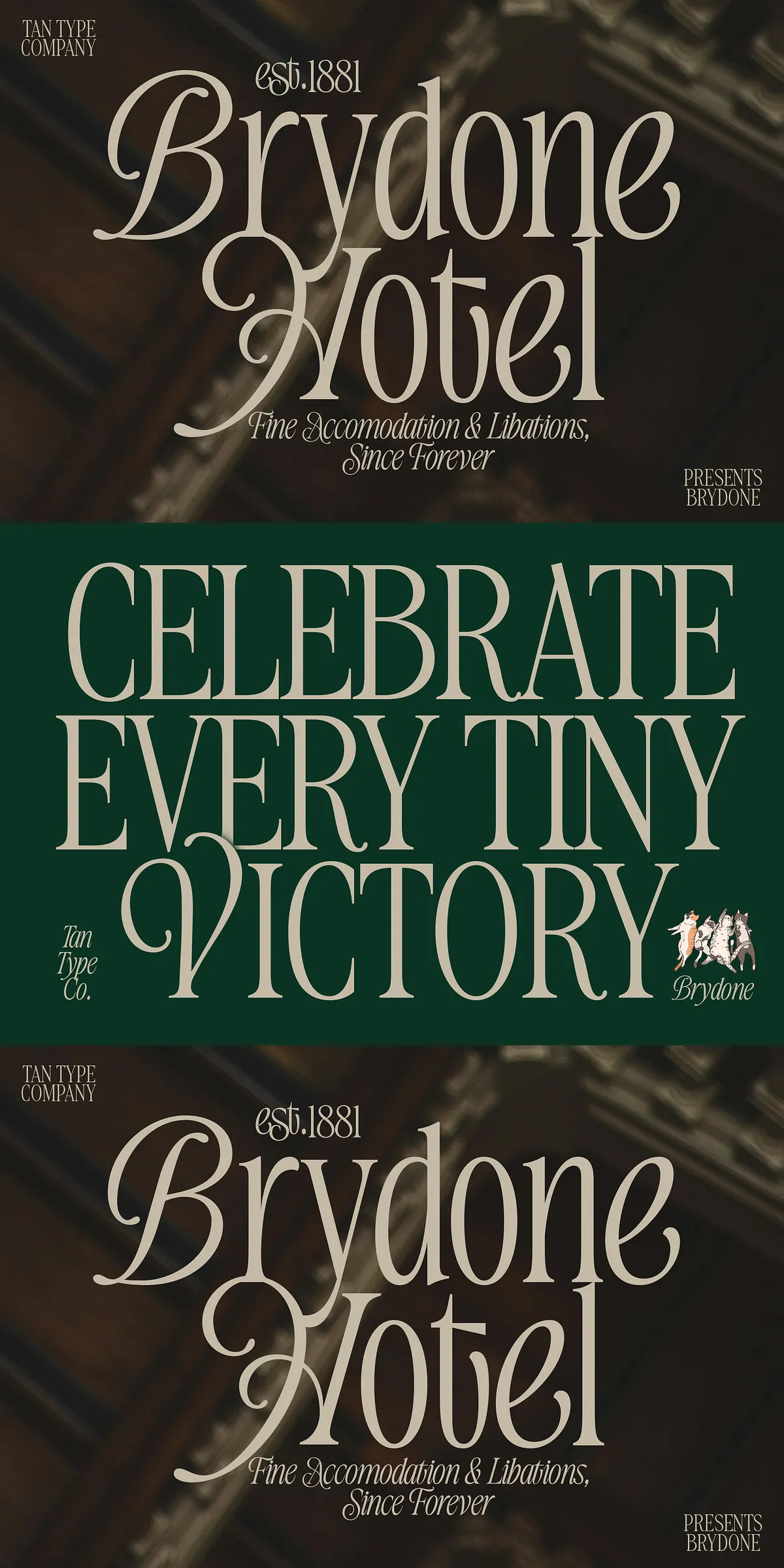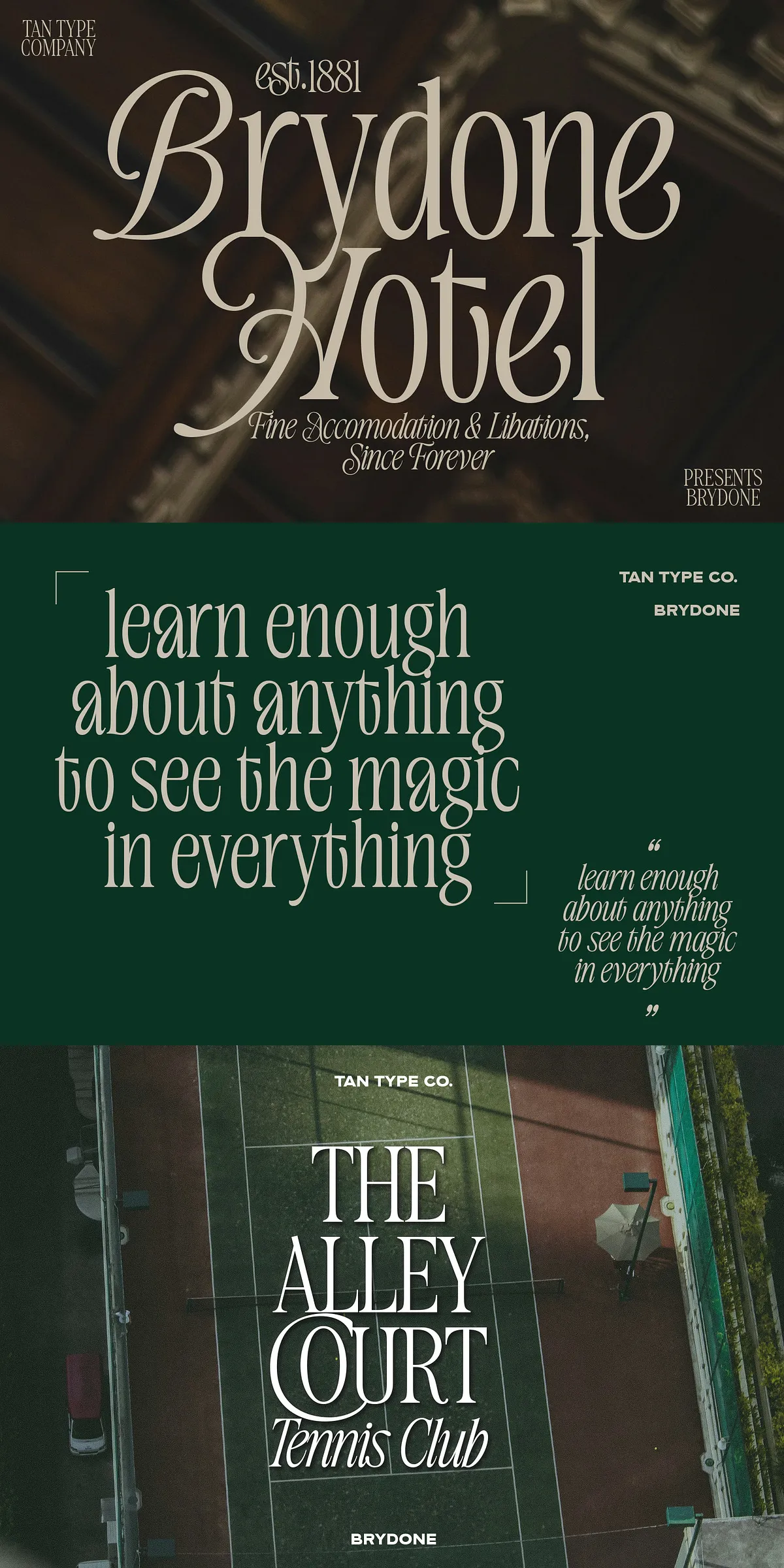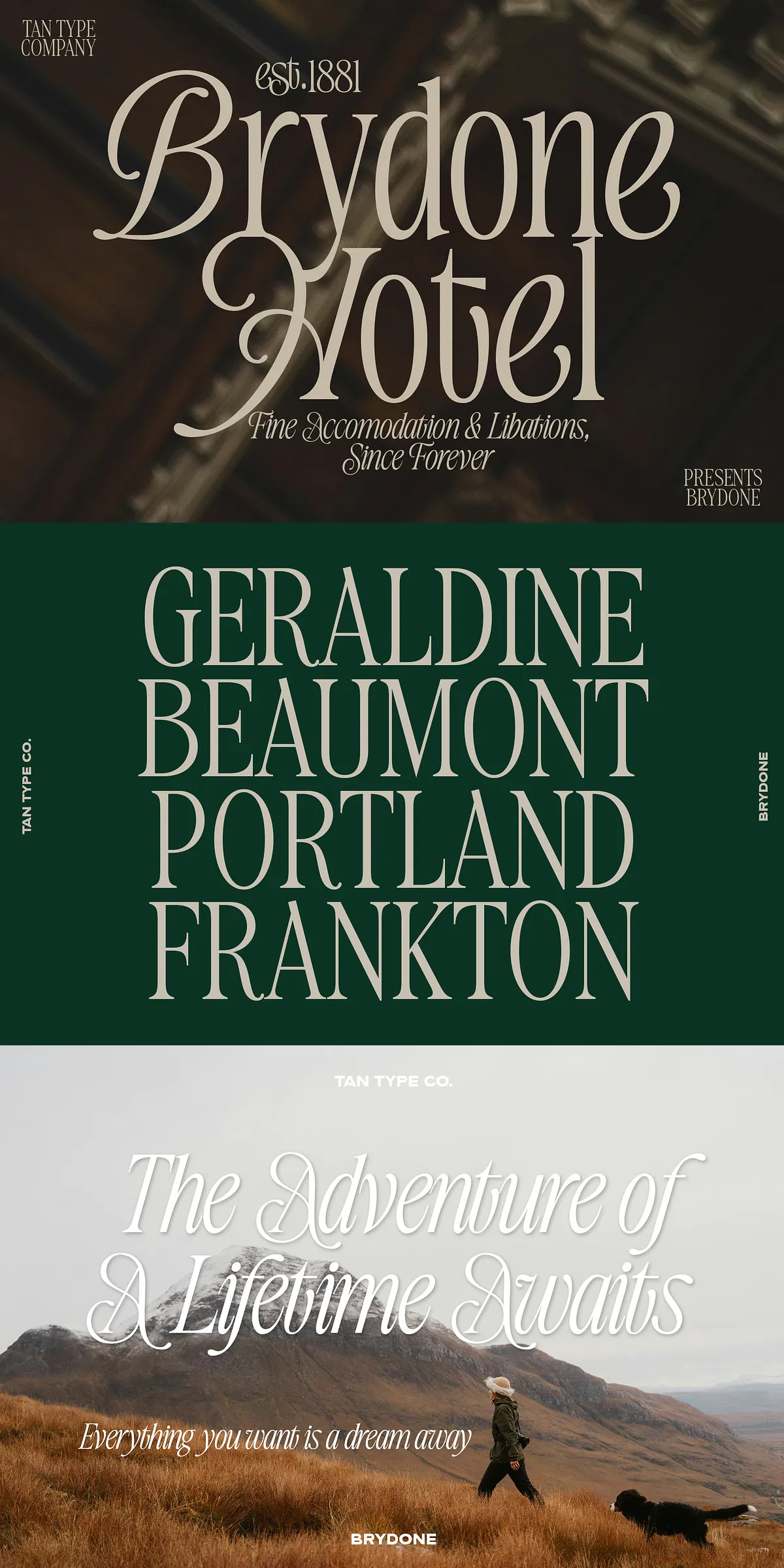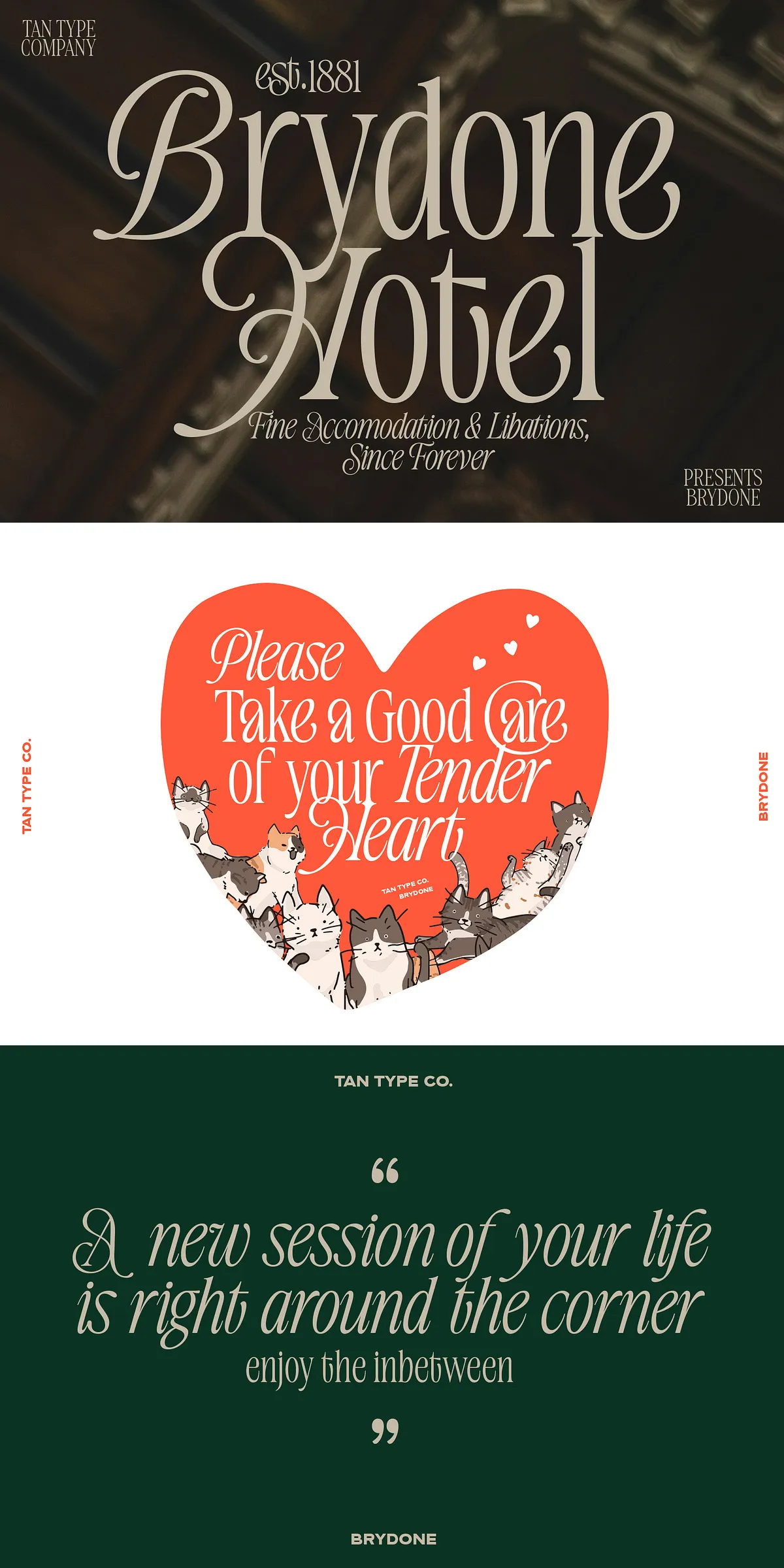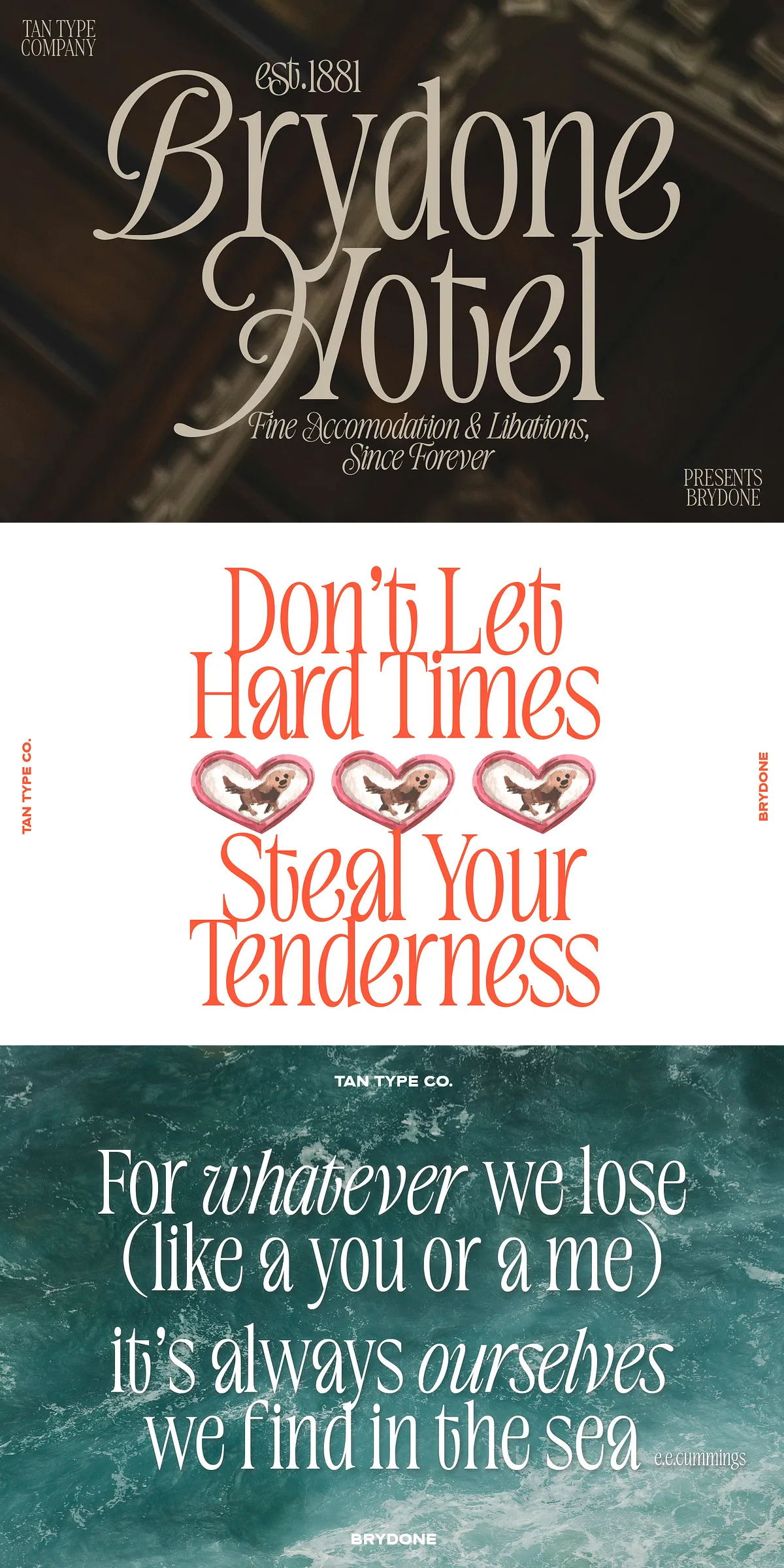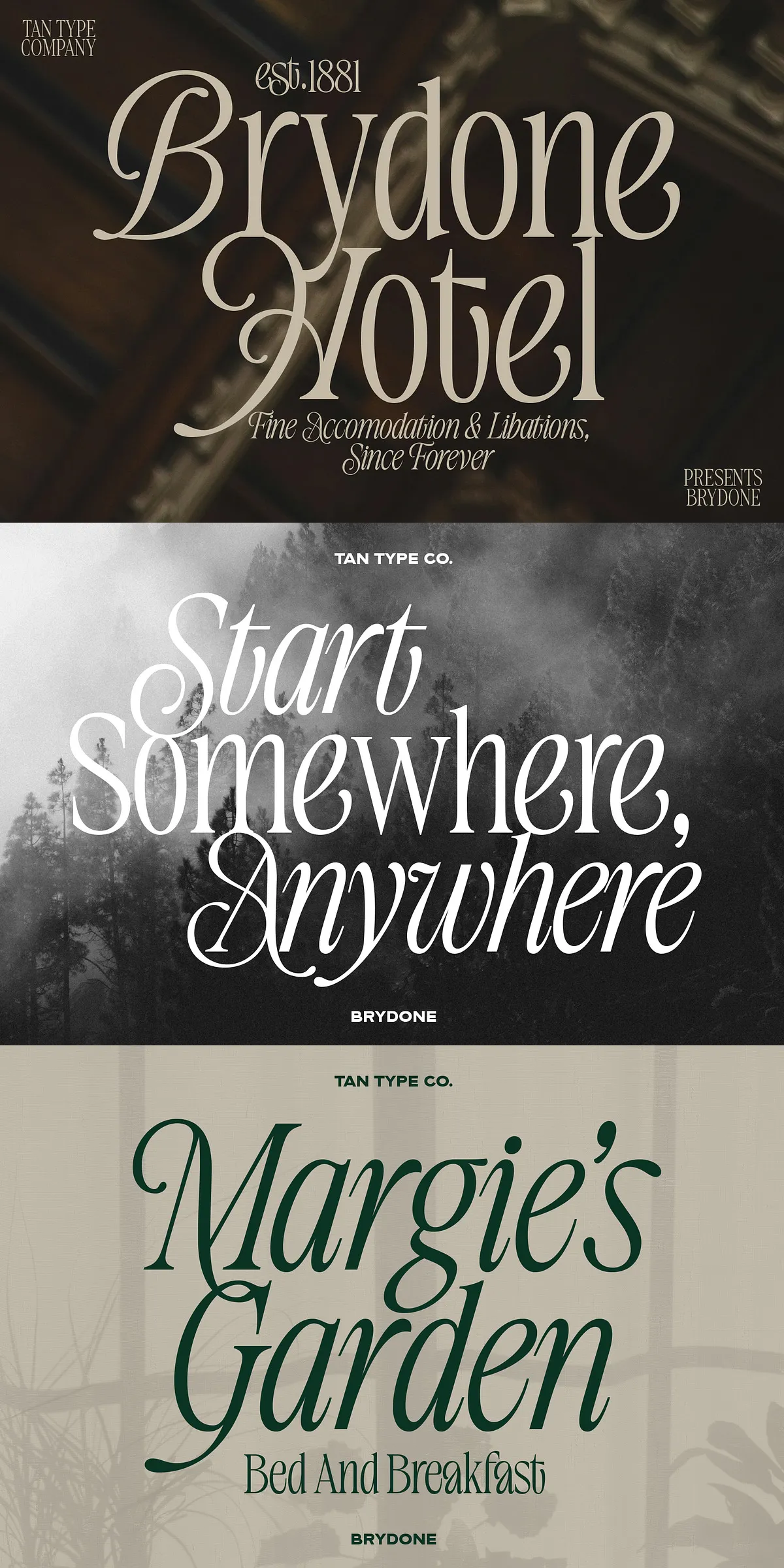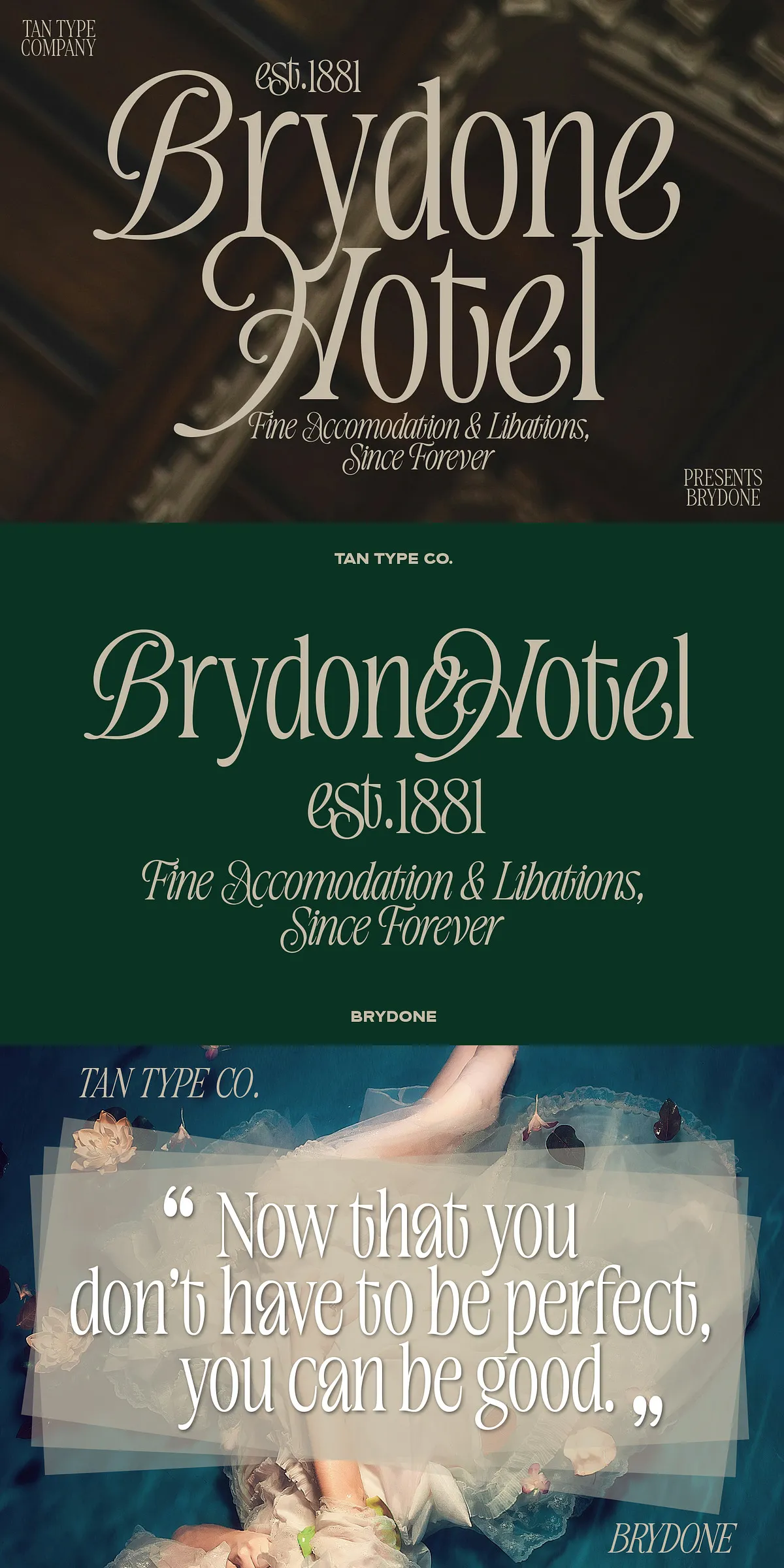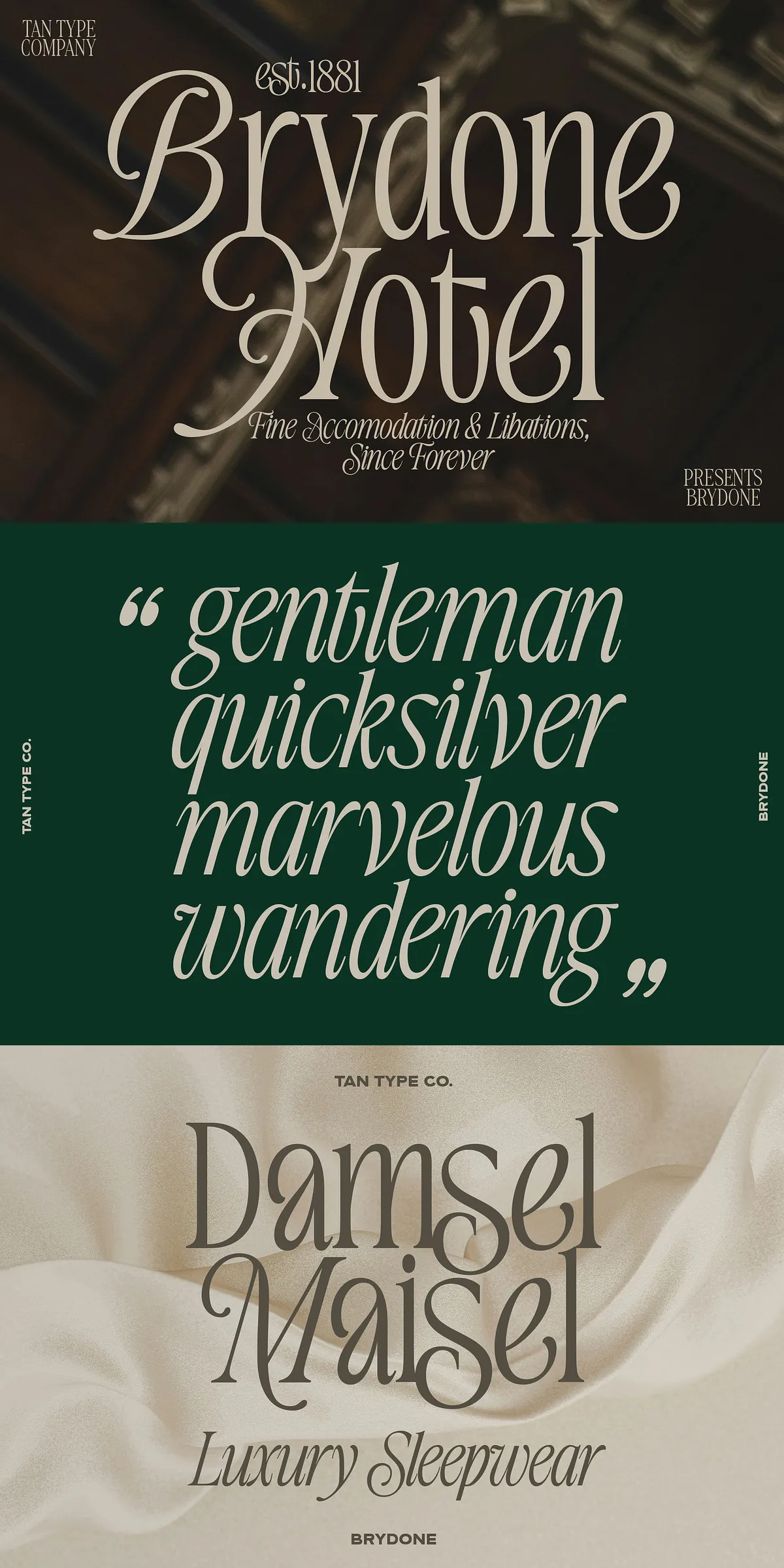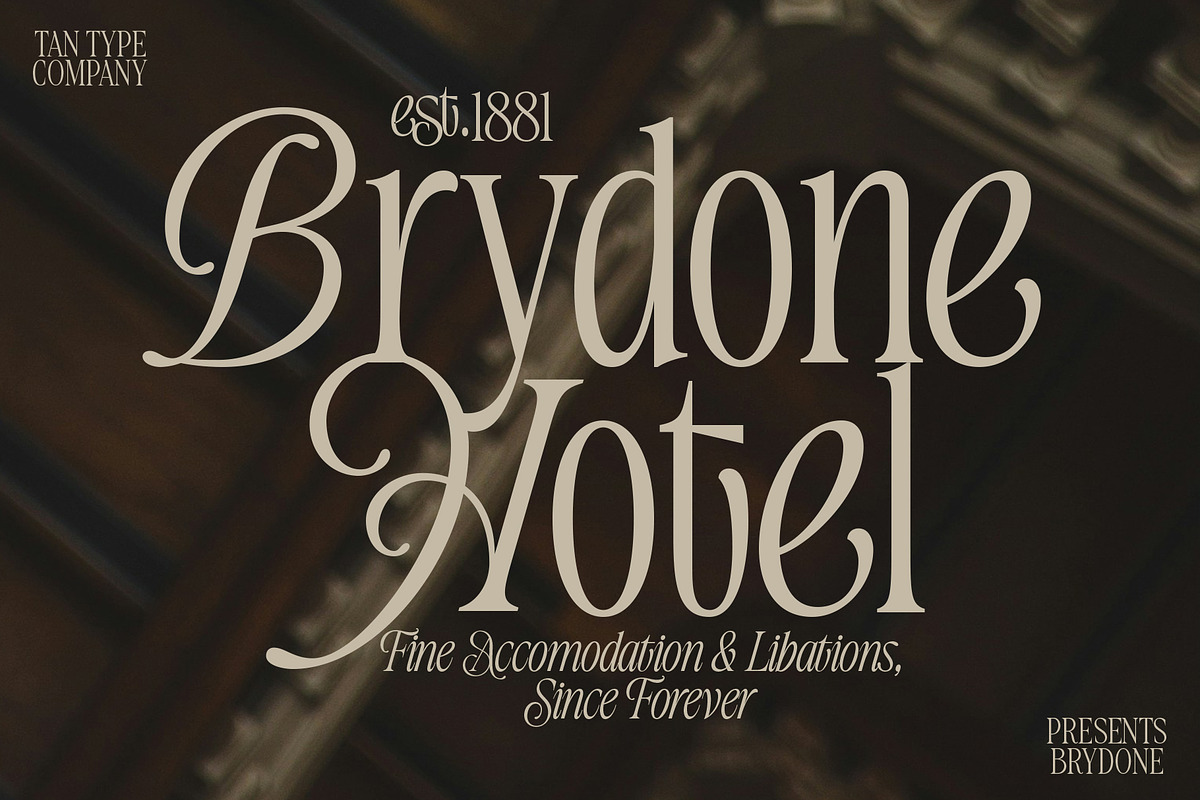
TAN-BRYDONE
Step into a world where typography feels like a handwritten letter from a trusted friend. Brydone isn’t just a font—it’s a voice. With its gently rounded edges, timeless letterforms, and a demeanor that feels both reliable and亲切, Brydone brings a rare balance of sophistication and soul to every project. It’s the font you reach for when you want words to not only be seen but truly felt.
Designed for Emotion, Built for Impact
Brydone was crafted for creators who believe that great design should resonate emotionally. Its softly curved serifs and balanced x-height create a visual rhythm that feels natural and inviting. Unlike stiff, impersonal typefaces, Brydone breathes warmth into every character. This isn’t just about aesthetics—it’s about connection. Whether you’re designing a wedding invitation, a cozy café menu, or a professional whitepaper, Brydone ensures your message lands with grace and authenticity.
Why Brydone Stands Out in a Crowd
• Classic Yet Modern: Drawing from traditional serif roots, Brydone has been thoughtfully updated for today’s design landscape—elegant without being outdated, refined without being cold.
• Gentle Visual Flow: The carefully calibrated spacing and smooth curves guide the reader’s eye effortlessly, making long texts a pleasure to read.
• Universal Appeal: Its approachable nature makes it ideal for both formal and intimate projects—no matter the tone, Brydone fits seamlessly.
Where Brydone Shines: Real-World Applications
From heartfelt gestures to polished brand identities, Brydone thrives in contexts where personality matters.
Perfect for These Projects:
• Invitations & Announcements: From weddings to baby showers, Brydone adds emotional depth and elegant charm to every message.
• Branding & Identity Design: Craft a brand voice that feels trustworthy and human, not corporate or robotic.
• Print & Editorial Layouts: Ideal for newsletters, brochures, and book covers where a personal, readable touch enhances engagement.
• Web & UI Copy: Use in headings, callouts, and testimonials to create a welcoming, non-intrusive reading experience.
• Shop Branding & Packaging: Perfect for small businesses, boutiques, or artisanal brands wanting to project warmth and authenticity.
Let Your Words Speak from the Heart
Brydone transforms the act of communicating into an experience. It’s not about shouting louder—it’s about being heard with care. Every curve, every serif, every character is intentional, designed to make your message feel sincere, polished, and deeply human.